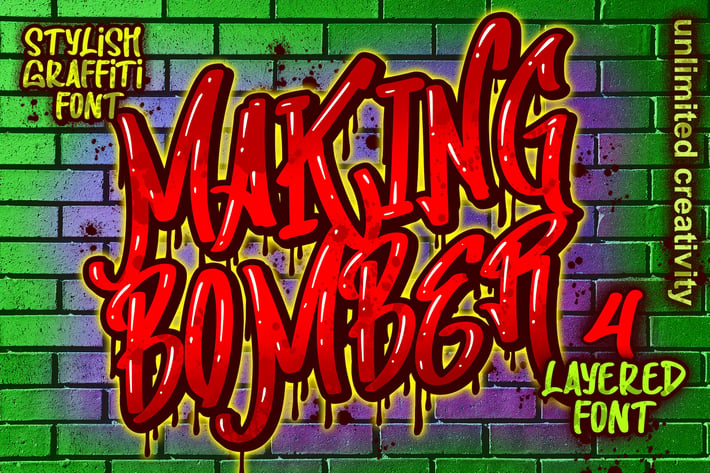
Making Bomber Font Family
Hi, This is Making Bomber, the font that inspired by urban street art. Making Bomber contain layered font (4 fonts) and 1 fixed font. You can see on the preview how awesome this font is, you can use it for magazine, logo, apparel, wall art, music album, and you can made a cool cutting sticker design